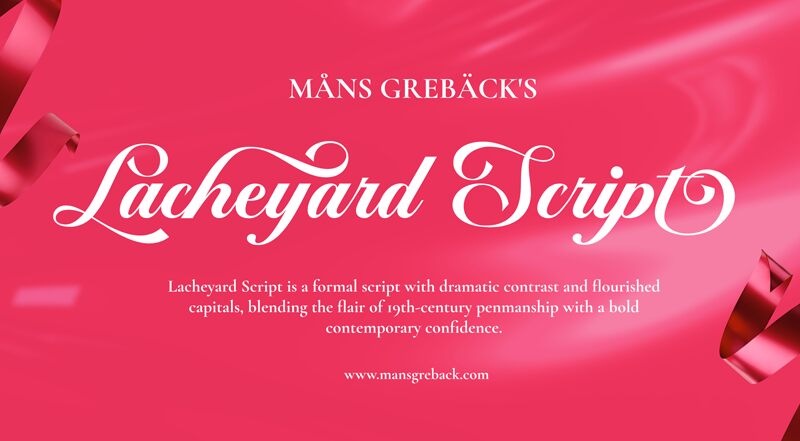
Lacheyard Script font by Måns Grebäck is a beautiful free script font for personal use, which boasts a decorative style of lettering. The font boasts intricate details and flowing strokes contained in every character. Enjoy a sophisticated, elegant, and simply pleasant experience reading any text written with this exquisite font.
Many projects can benefit from the decorative style of Lacheyard Script. This calligraphic work of art will be most suitable for headings and titles, as well as branding, typography art, or even long-form text inside magazines and books. Other recommendations include postcard design, book cover design, packaging, banners, and social media posts.
Lacheyard Script is a formal script that features dramatic contrast and flourished capitals, seamlessly blending the charm of 19th-century penmanship with a bold, contemporary confidence.
The uppercase letters are lavishly looped and embellished, yet maintain careful balance for readability. The lowercase characters are elegant and flowing, featuring smooth curves that enable rhythmic writing.